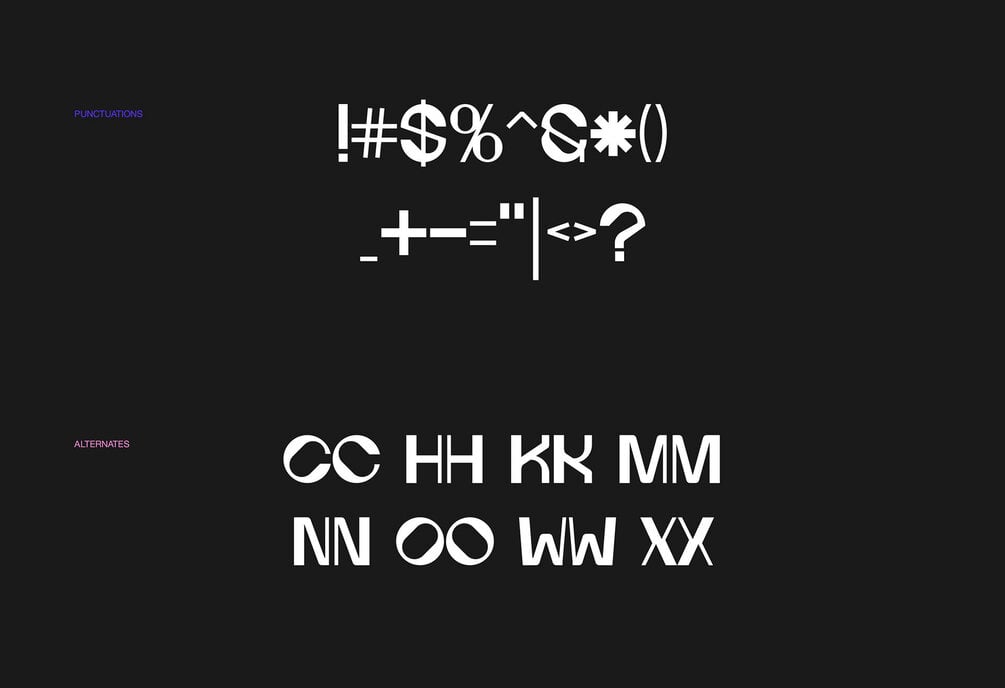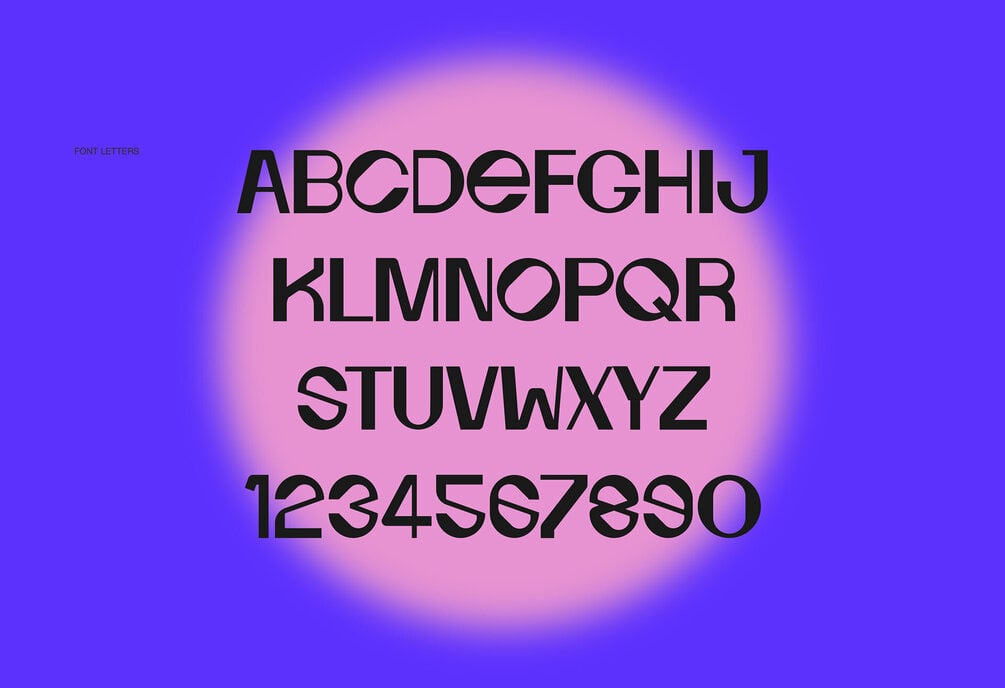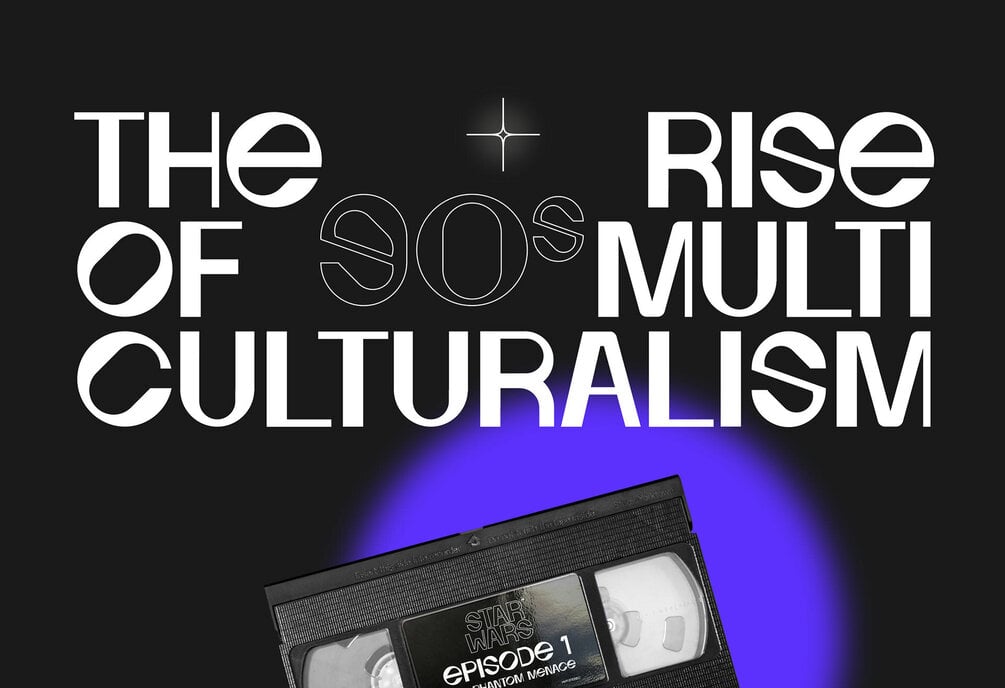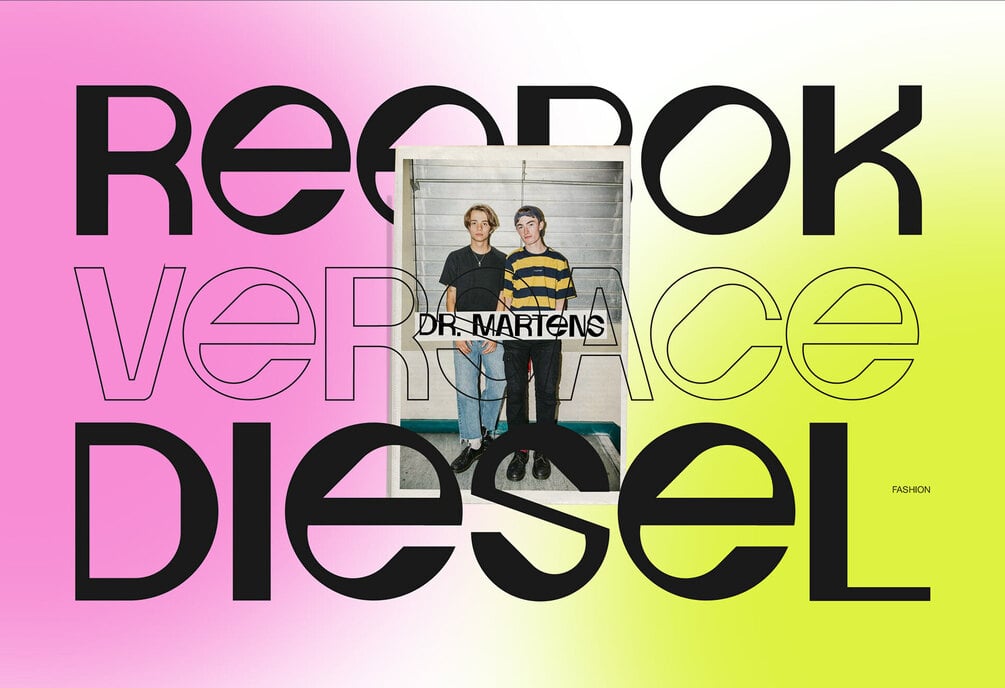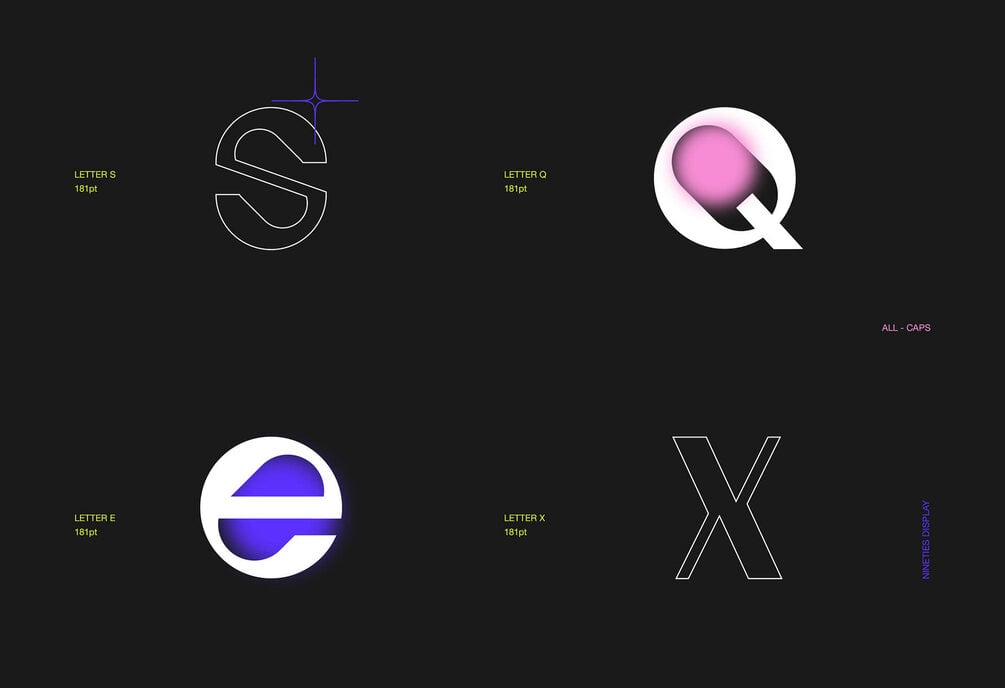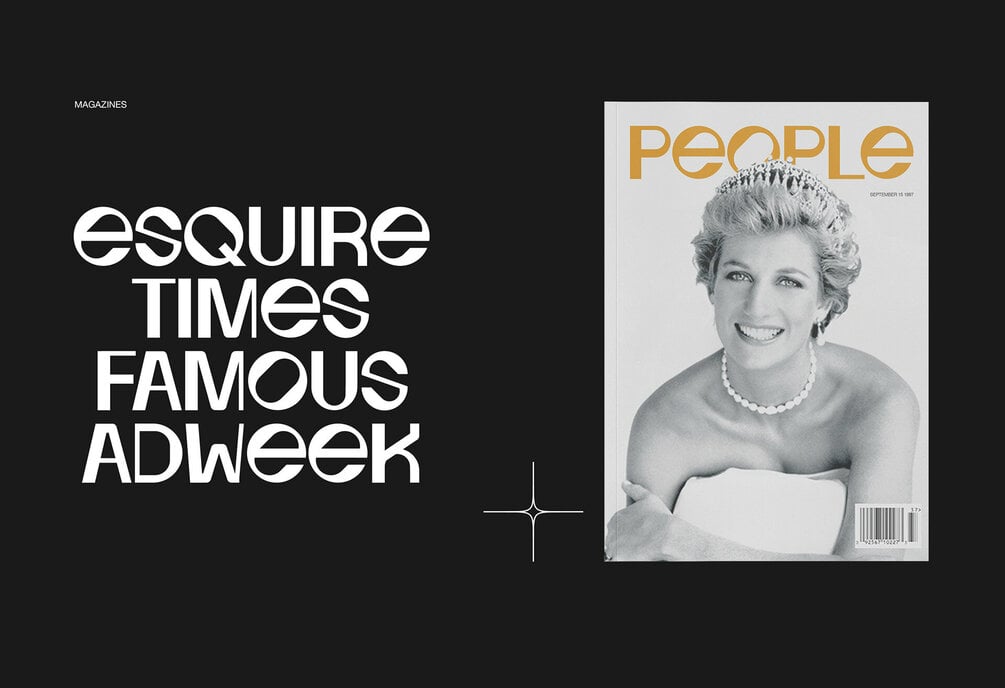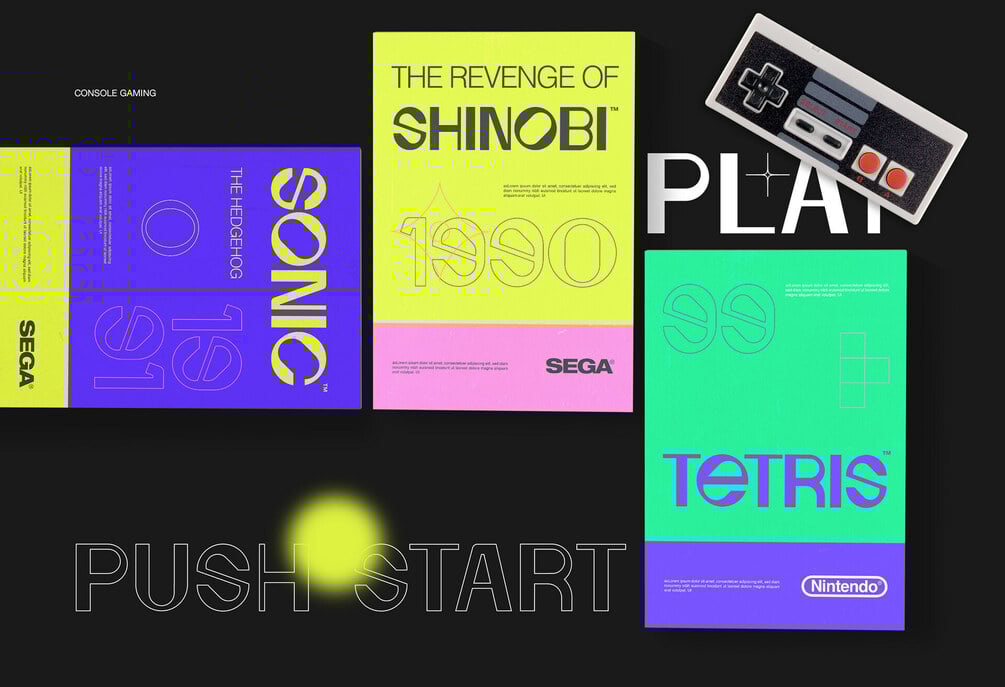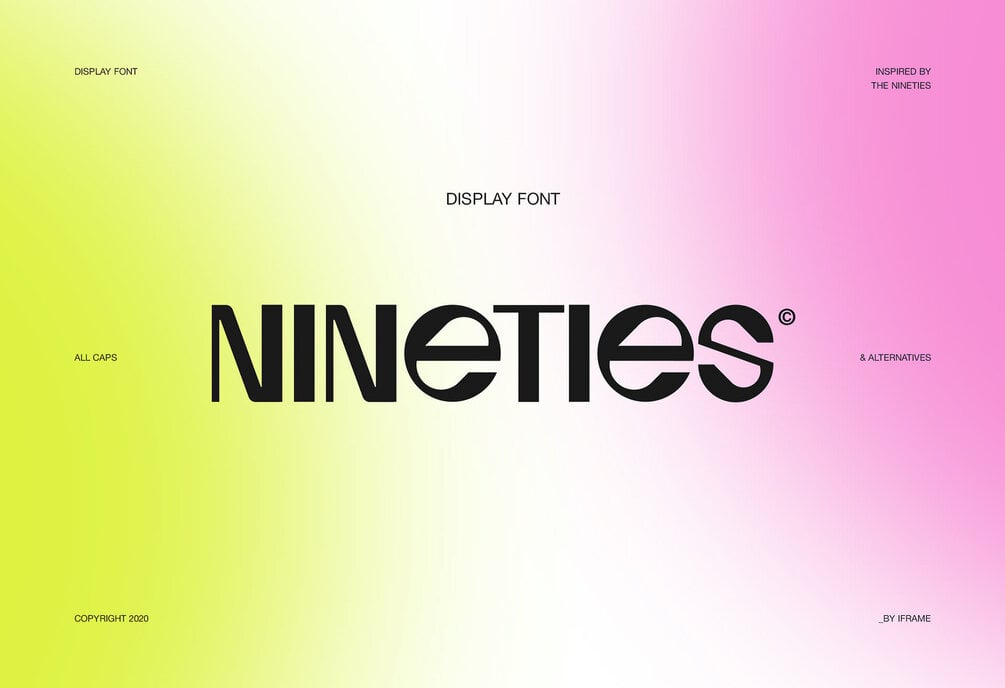
Nineties Display Font
A display font inspired by the nineties, our favorite decade. A modern font that is both memorable and stylish.
This font is suitable for use in many design forms, for example sci-fi scenes, retro gaming, magazines, postcards, logos, DIY Projects, invitation card, quotes and much more.